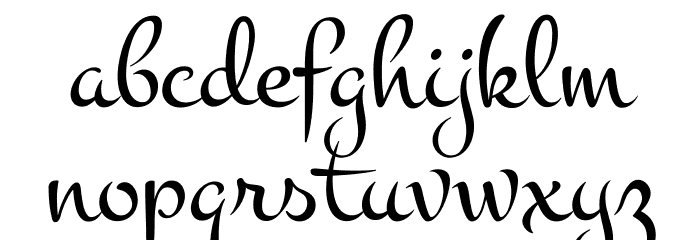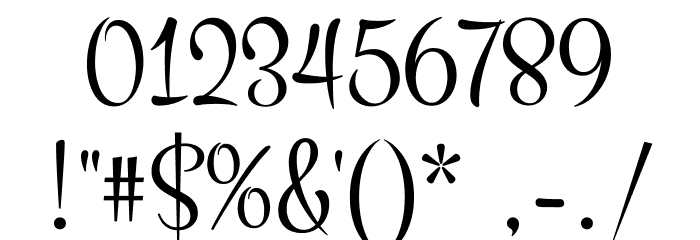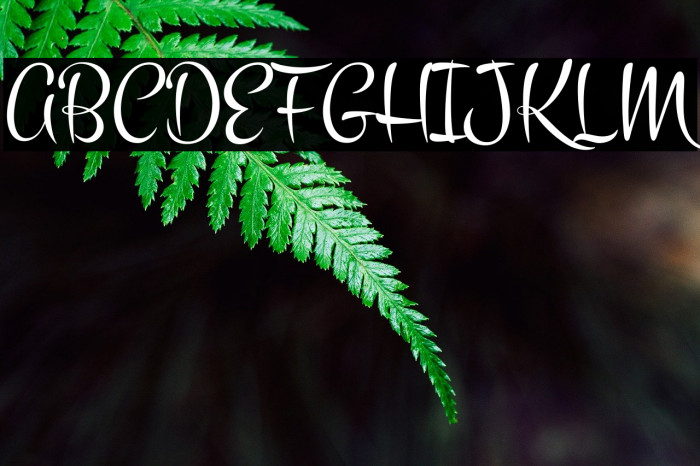
Montez Font
This font exudes a charming and elegant script style, characterized by its flowing, cursive letterforms. The uppercase letters are tall and graceful, with sweeping curves and delicate loops that give a sense of movement and fluidity. The lowercase letters maintain a consistent rhythm, with smooth connections between characters, enhancing readability while preserving the decorative nature of the script. The numerals are well-integrated, matching the overall style with their rounded and slightly whimsical appearance. Special characters are thoughtfully designed, complementing the aesthetic with their own unique flair. This font is perfect for projects that require a touch of sophistication and elegance, such as wedding invitations, greeting cards, or branding materials.
A charming and elegant script font with flowing, cursive letterforms.
- Proposed Projects: Ideal for wedding invitations, greeting cards, branding materials, and elegant signage.
- Category: Script
- Overall Style: Elegant
- Use Case: Headlines, Invitations, Branding